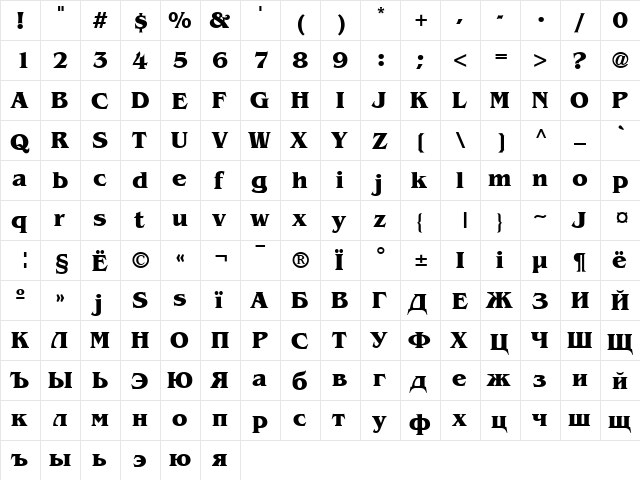
Benguiat Rus Bold
Design Context for Benguiat Rus Typeface
Benguiat Rus offers clean, dependable letterforms without strong stylistic allegiance, making it a practical choice for designers who need flexibility. Its bold stroke weight gives it real presence on the page.
Pro Tip: Pair Benguiat Rus with a font of contrasting weight or personality to build a more expressive typographic hierarchy.